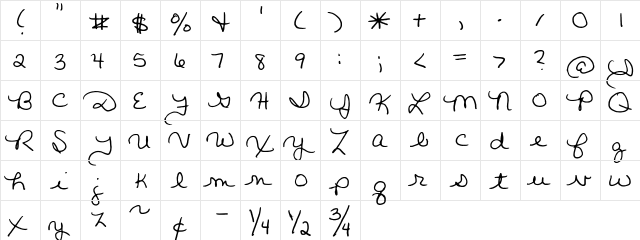
FG Ang Hand Regular
| Foundry | Angie Stokes fonted by Font Garden |
Design Context for FG Ang Hand Typeface
FG Ang Hand flows with the natural rhythm of handwritten lettering, making it ideal for designs that call for warmth and personal expression.
Font Pairing: Combine FG Ang Hand with a simple geometric sans for maximum contrast — the tension between flowing curves and clean structure is a classic typographic pairing.
Pro Tip: Use FG Ang Hand for short runs of text — names, titles, or taglines. Extended body copy in script faces tires the eye quickly.